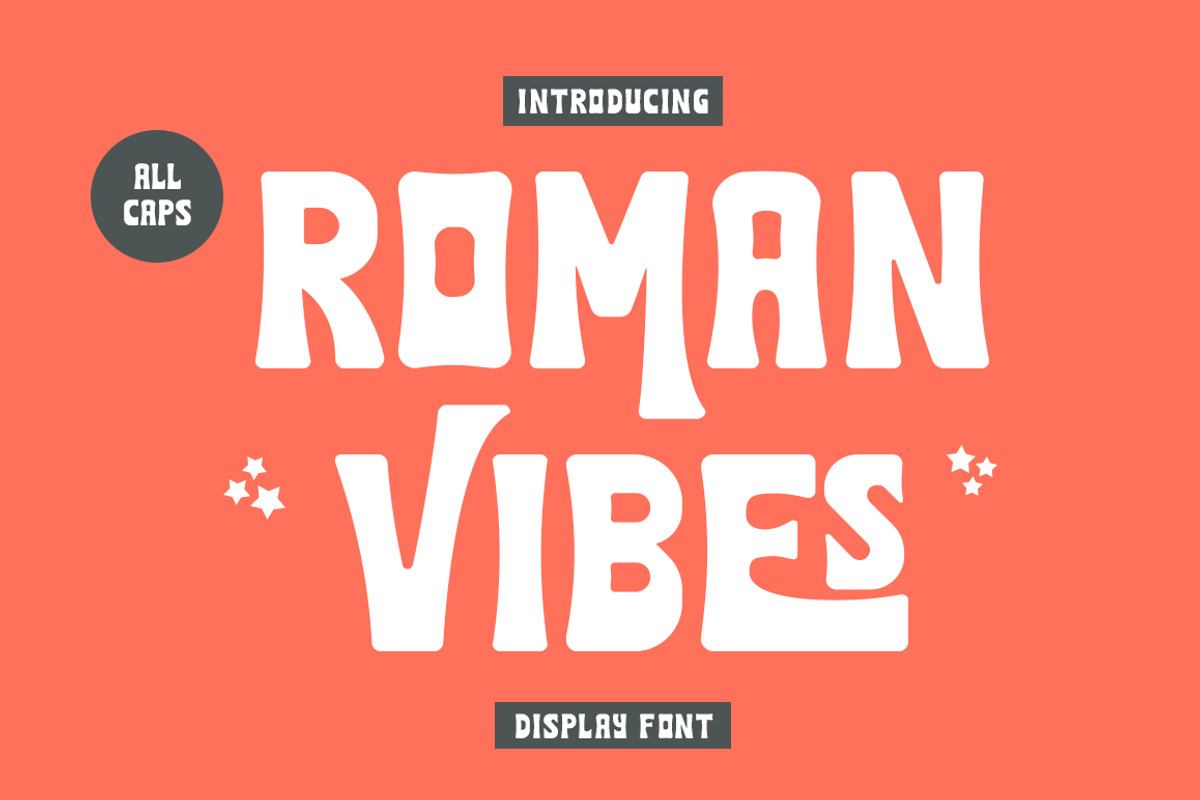
ROMAN VIBES - RETRO DISPLAY FONT Free Download
ROMAN VIBES – Retro Display Font Free Download
ROMAN VIBES – Retro Display Font Free Download is a bold and stylish typeface that captures the essence of vintage design with a modern twist. With its strong, geometric letterforms and retro aesthetic, this font is perfect for headlines, posters, logos, branding, and anything that needs a bold, nostalgic look.
Inspired by classic retro design elements, Roman Vibes brings a sense of cool, old-school charm, while maintaining a fresh, contemporary edge. Whether you’re working on a music poster, retro branding, or creative digital content, this font gives your designs a timeless yet modern vibe.
Add a touch of vintage flair to your next project with ROMAN VIBES – Retro Display Font Free Download. Download the demo today and bring the past into the present with bold, retro typography!